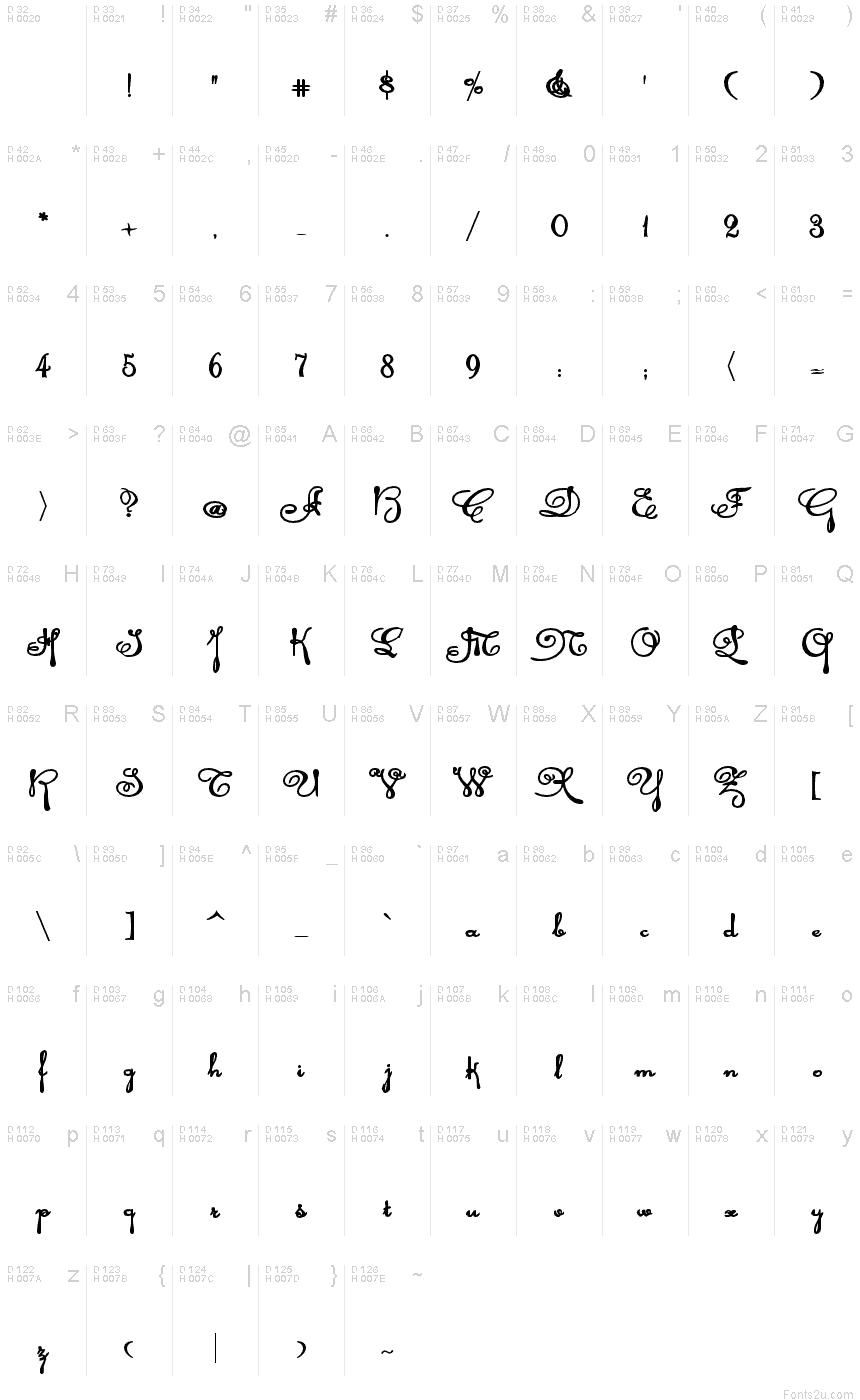
Rhalina Bold Expanded by Daniel Zadorozny of Iconian Fonts is a free calligraphic script with broad theatrical movement and dramatically extended loops. Changing stroke widths, sweeping curves, and tall flourishes give the letters a lively silhouette, with compact joins set against long horizontal gestures and deep descending strokes.
Music posters are its strongest setting, where the oversized gestures can echo performance, movement, and stage spectacle. The same sweeping construction also suits album covers, fashion packaging, and event identities, especially when a brand wants its name to behave like a custom signature or memorable central decorative emblem rather than ordinary lettering.